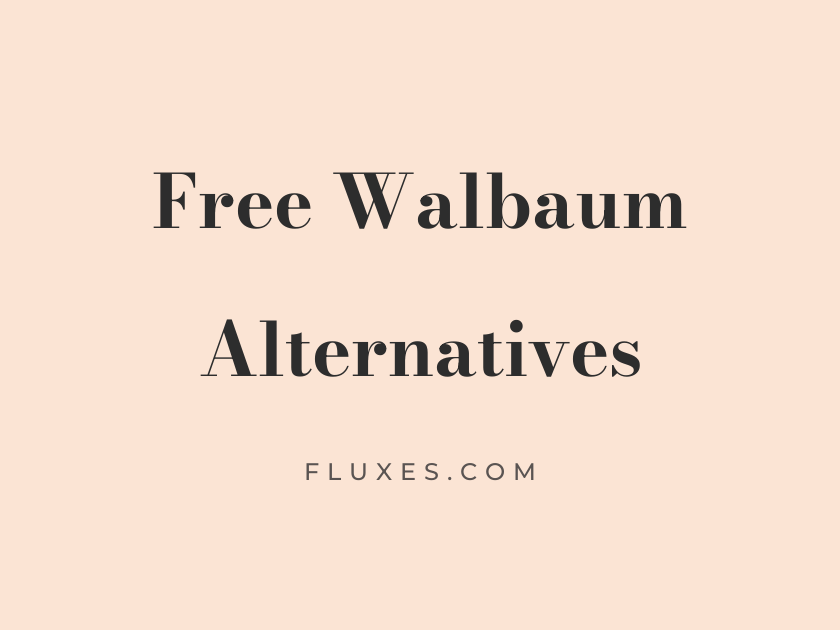
15 Best Free Fonts Alternatives to Walbaum
Walbaum has a very particular kind of elegance. Cut in Weimar in the early 1800s by the punchcutter Justus Erich Walbaum, it belongs to the same high-contrast Didone family as Bodoni and Didot, but with a slightly warmer, less mechanical character that has made it a favorite for fashion editorials, wine labels, and literary branding ever since. Because the original is a commercial typeface and not available on Google Fonts, designers looking for that same needle-sharp thick-thin contrast and vertical stress often go searching for a free alternative that can carry the same sense of old-world refinement into a modern web project.
The fonts gathered here lean into that Didone spirit in different ways: some match the hairline contrast almost stroke for stroke, others soften it for better readability at text sizes, and a few borrow the German or continental serif tradition Walbaum came from without copying it outright.
1. Bodoni Moda
Elegance carved in ink, line by line
If you want the closest living relative to Walbaum on Google Fonts, start here. Bodoni Moda shares the same lineage of extreme thick-thin contrast and rigid vertical axis, and its optical size range means it can flex from a delicate text setting to a poster-scale display face without losing its bite. It reads as instantly luxurious, which makes it a natural fit for fashion, beauty, and editorial branding.
2. Playfair Display
A masthead built for timeless fashion stories
Playfair Display has become something of a default for designers chasing an elegant, high-contrast serif, and it earns that popularity honestly. The letterforms are a touch more generous and less severe than Walbaum’s, which makes headlines feel confident rather than cold. It pairs beautifully with a plain sans-serif body copy for magazine-style layouts.
3. Abril Fatface
Bold headlines for a luxury boutique launch
Abril Fatface takes the Didone contrast to its loudest extreme, with strokes so heavy they nearly turn to solid ink at large sizes. It is not a font for body text or anything subtle; it belongs on posters, cover pages, and hero banners where drama is the point. Use it sparingly and it commands attention every time.
4. DM Serif Display
Refined headlines for a vintage perfume label
There is a slightly theatrical quality to DM Serif Display, with tall ascenders and ornamental swashes hiding in its italics that give it more personality than a strict Didone revival. It works well anywhere Walbaum might be used for a pull quote or a chapter opener. At small sizes the contrast gets fragile, so keep it above 24px or so.
5. DM Serif Text
Long-form elegance for the modern reader
The companion text version dials back the drama just enough to hold up in paragraphs. It keeps the family’s warm, slightly old-fashioned mood while staying legible for body copy, making it a sensible pairing partner for its own display sibling.
6. Fraunces
Old-world charm meets contemporary editorial design
Fraunces is an unusual case: it carries genuine Didone DNA in its contrast and ball terminals, but its variable axes let it soften into something almost humanist and warm. Designers drawn to Walbaum for its personality rather than its rigidity often end up here instead. The optical size and “wonky” axis controls give it a flexibility that few classical revivals offer.
7. Cormorant
Delicate serifs for an invitation suite
Cormorant is built for elegance at generous sizes: thin, jewel-like strokes with high contrast that feel closer to a hand-cut letterpress face than a screen font. It gets thin and slightly fragile below 18px, so it belongs on titles, invitations, and pull quotes rather than paragraphs.
8. Ibarra Real Nova
A classical voice for literary book design
Rooted in the Spanish typographic tradition rather than the German one, Ibarra Real Nova has a moderate contrast and warm, inky texture that reads as scholarly and timeless. It is a strong choice for book interiors and long-form articles where Walbaum’s flavor is wanted without its riskier thin strokes.
9. Piazzolla
Versatile serif for elegant editorial layouts
Piazzolla is a workhorse with enough personality to feel special. Its optical size axis lets it tighten up for captions or open up for display headlines, and its transitional contrast gives a nod to classical serifs without the fragility that comes with true Didone extremes.
10. Noto Serif Display
High-contrast headlines with global language support
For projects that need Walbaum’s crisp drama across multiple scripts and languages, Noto Serif Display is the practical choice. It shares Google’s broad Noto language coverage while still delivering genuine high-contrast Didone character in its Latin glyphs.
11. Vollkorn
German-rooted serif for editorial storytelling
Given that Walbaum himself worked in Weimar, there is something fitting about pairing it with a serif from the same German type tradition. Vollkorn trades hairline contrast for sturdier, more moderate strokes, making it a dependable body-text companion rather than a display substitute.
If you want a single family to do both jobs, Piazzolla and Fraunces are worth a closer look, since their optical size ranges let one typeface flex from caption to cover line.
None of these fonts are a pixel-for-pixel clone of Walbaum, and that is fine. Each one borrows a different piece of its character, whether that is the razor-thin contrast, the continental serif heritage, or simply the mood of understated luxury, giving you a genuinely free starting point for the next elegant, editorial, or classically minded design.